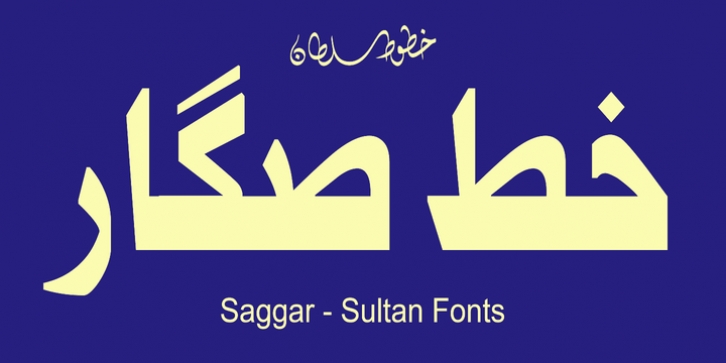
SF Saggar was designed by Sultan Maqtari and published by Sultan Fonts. SF Saggar contains 3 styles and family package options.
SF Saggar is an Arabic typeface for Print and screen. Inspired by an alphabet written by the calligrapher and artist Mohamed Said Al-Saggar 40 years ago to simplify Arabic printing.
Saggar is from Naskh style and contains 3 weights: Regular, bold and black. SF Saggar is a simple and little detailed font and its three weights are fully harmonized, one letter with one length on the line, and words with a uniform length on the line, gives a comfortable reading look.
· SF Saggar Normal
· SF Saggar Bold
· SF Saggar Black